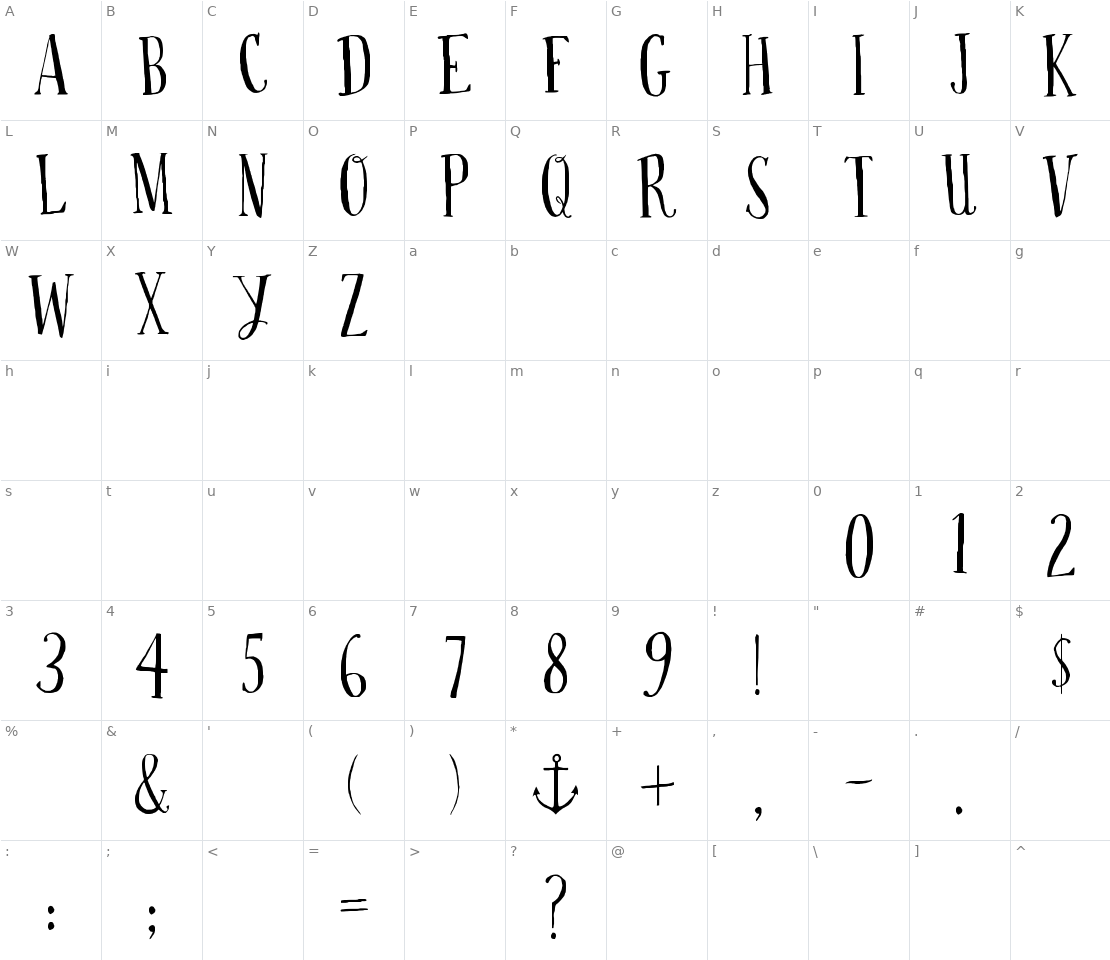
Drop your anchor
by Jeremy Dixon
Drop your anchor is a condensed, whimsical display face by Jeremy Dixon with tall letterforms that carry a distinctly nautical character. The decorative details feel quirky and hand-lettered, like signage you'd find on a seaside boardwalk or a vintage harbor shop. Best kept to headlines and short runs of text where its playful personality can come through without wearing thin.